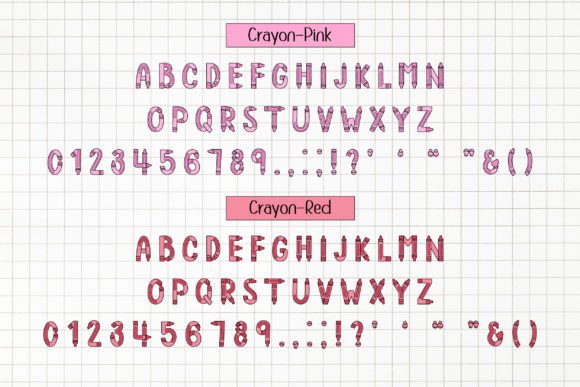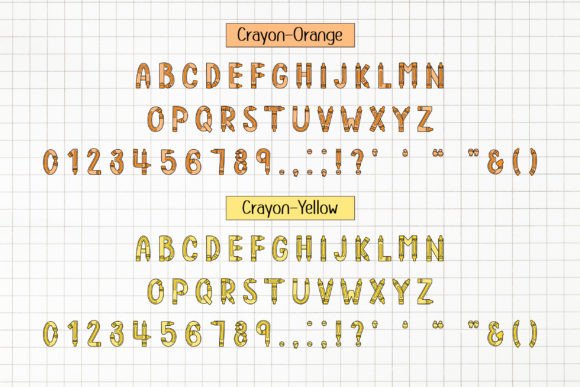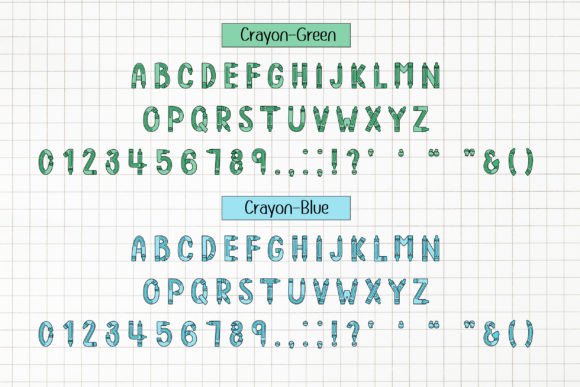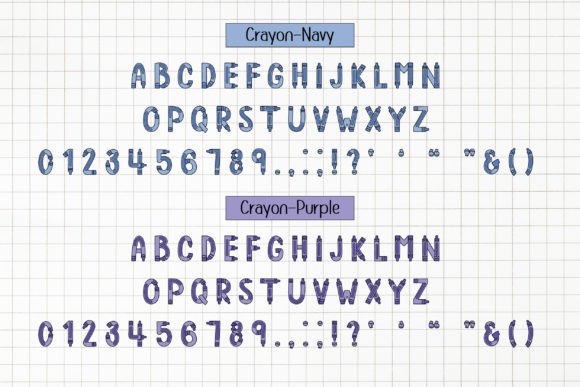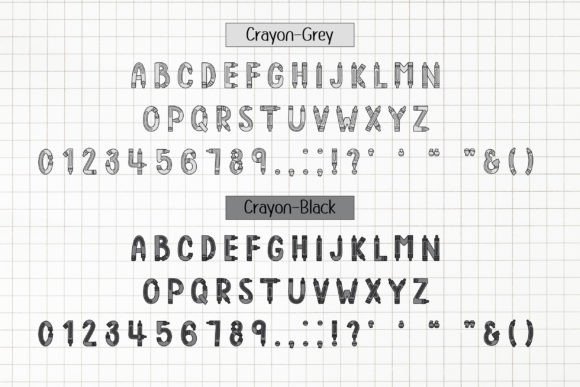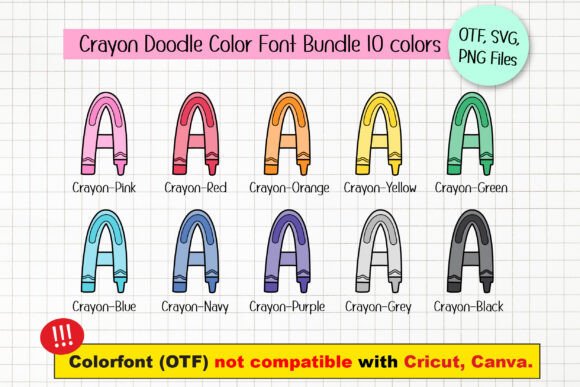
Introducing Crayon Doodle: Unleash Your Creativity with this Whimsical Font
Are you ready to add a pop of color and creativity to your DIY projects, crafts, and designs? Look no further than “Crayon Doodle,” a vibrant and playful font that brings the world of school artistry to life. This delightful font is perfect for designers, crafters, and artists who want to infuse their work with a sense of imagination and fun.
A Font that Captures the Essence of School Artistry
Crayon Doodle is a unique font that embodies the colorful and creative spirit of school artistry. Its design features letters shaped like crayons, complete with bright, bold colors that will transport you back to a world of childhood creativity and imagination. Whether you’re working on custom DIY craft projects, personalized names, sublimations, posters, or more, this font offers endless possibilities for self-expression.
10 Different Color Fonts to Spark Your Creativity
One of the most exciting features of Crayon Doodle is its collection of 10 different color fonts. Each font is carefully crafted to showcase a range of vibrant colors, from classic red, blue, and yellow to more playful shades like pink, green, and purple. With such a wide range of colors to choose from, you’re sure to find the perfect combination to match your unique style and project needs.
Endless Possibilities for Customization and Creativity
Whether you’re a designer, crafter, or artist, Crayon Doodle offers endless possibilities for customization and creativity. Use it to create:
- Custom DIY craft projects, such as personalized signs, cards, and gift tags
- Colorful posters, flyers, and brochures that grab attention
- Sublimations, such as custom mugs, t-shirts, and phone cases
- Personalized names and titles for journals, planners, and other stationery
Unleash Your Inner Artist with Crayon Doodle
Tips and Tricks for Using Crayon Doodle
To get the most out of Crayon Doodle, here are a few tips and tricks to keep in mind:
- Experiment with different color combinations to find the perfect match for your project
- Don’t be afraid to mix and match Crayon Doodle with other fonts and design elements to create a unique look
- Take advantage of the font’s playful design to add a touch of personality to your projects